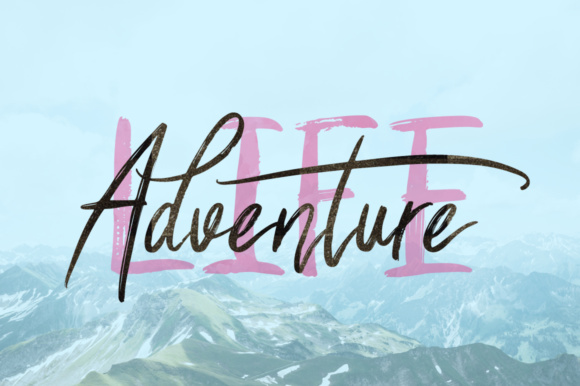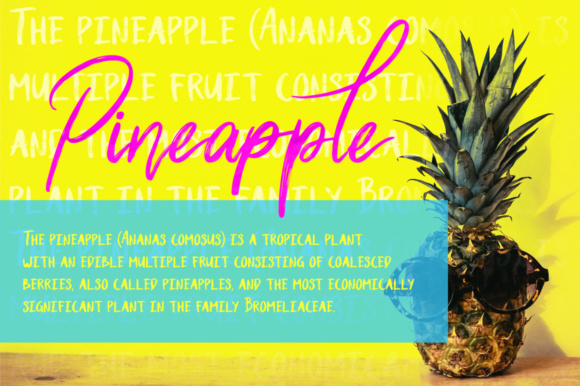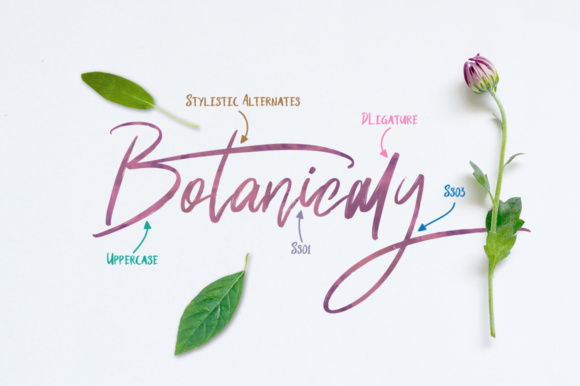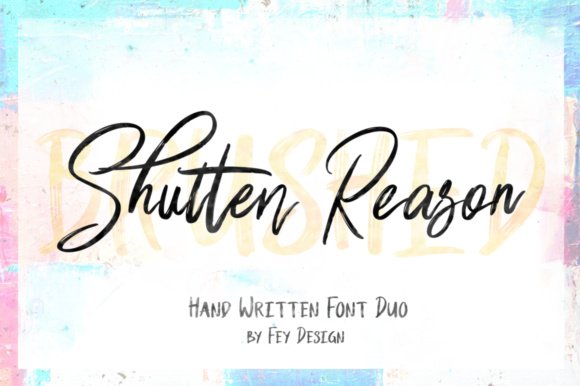
Introduction to Shutten Reason Font
The Shutten Reason Duo combines a handwritten brush with a stunning sans.
It’s suitable for many different designs .
Shutten Reason Font offers exceptional quality and versatility, making it a valuable addition to your design toolkit. Whether you’re creating for personal projects or commercial use, Shutten Reason Font delivers professional results.